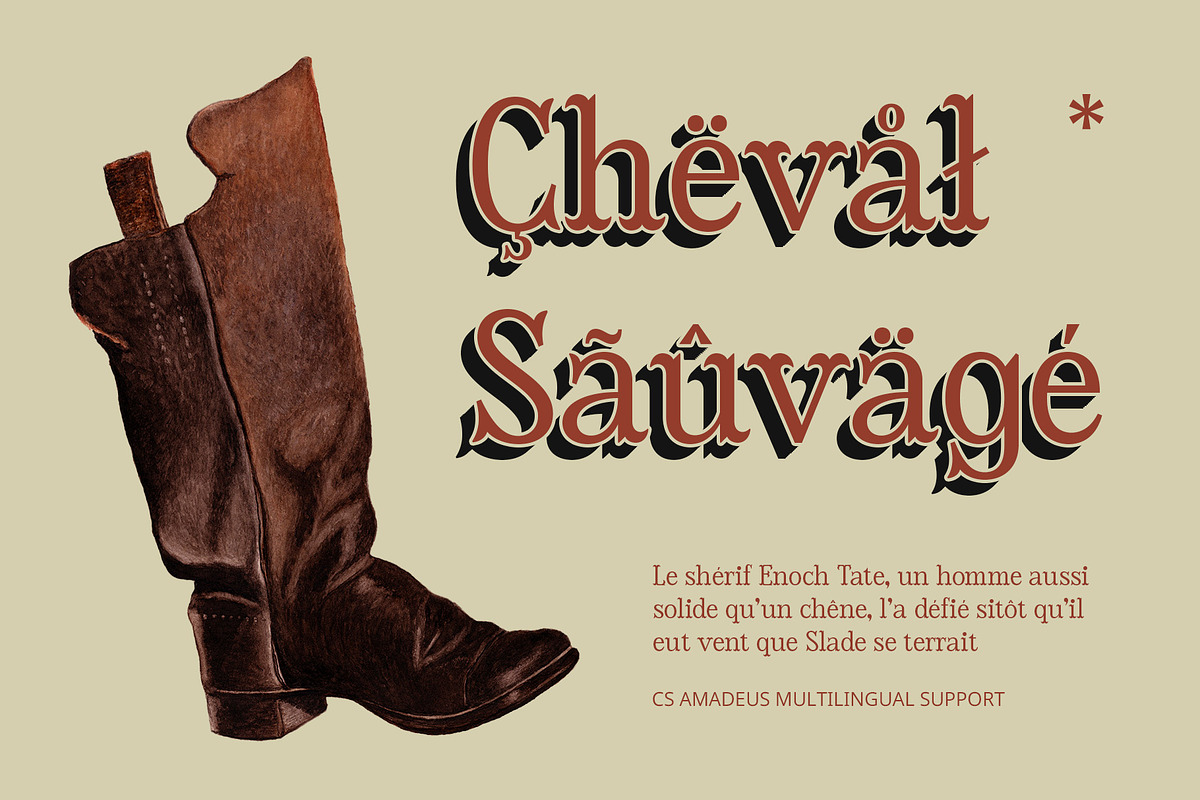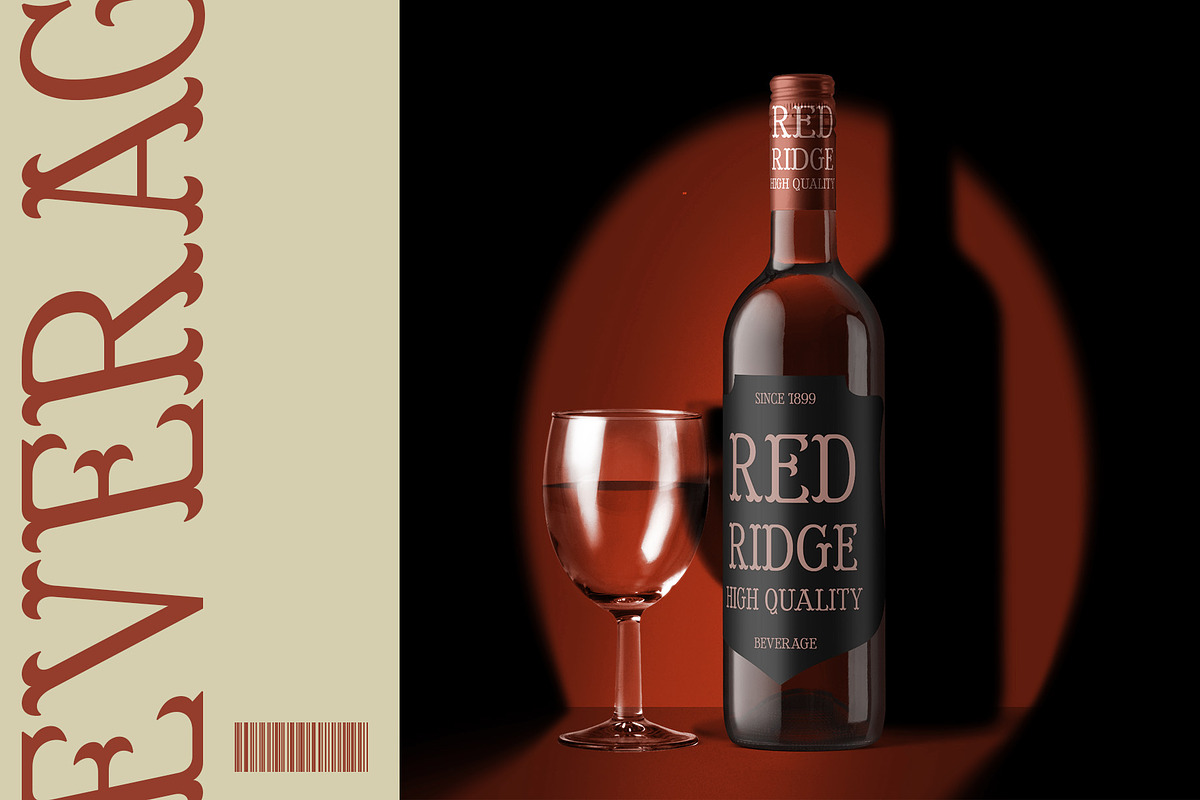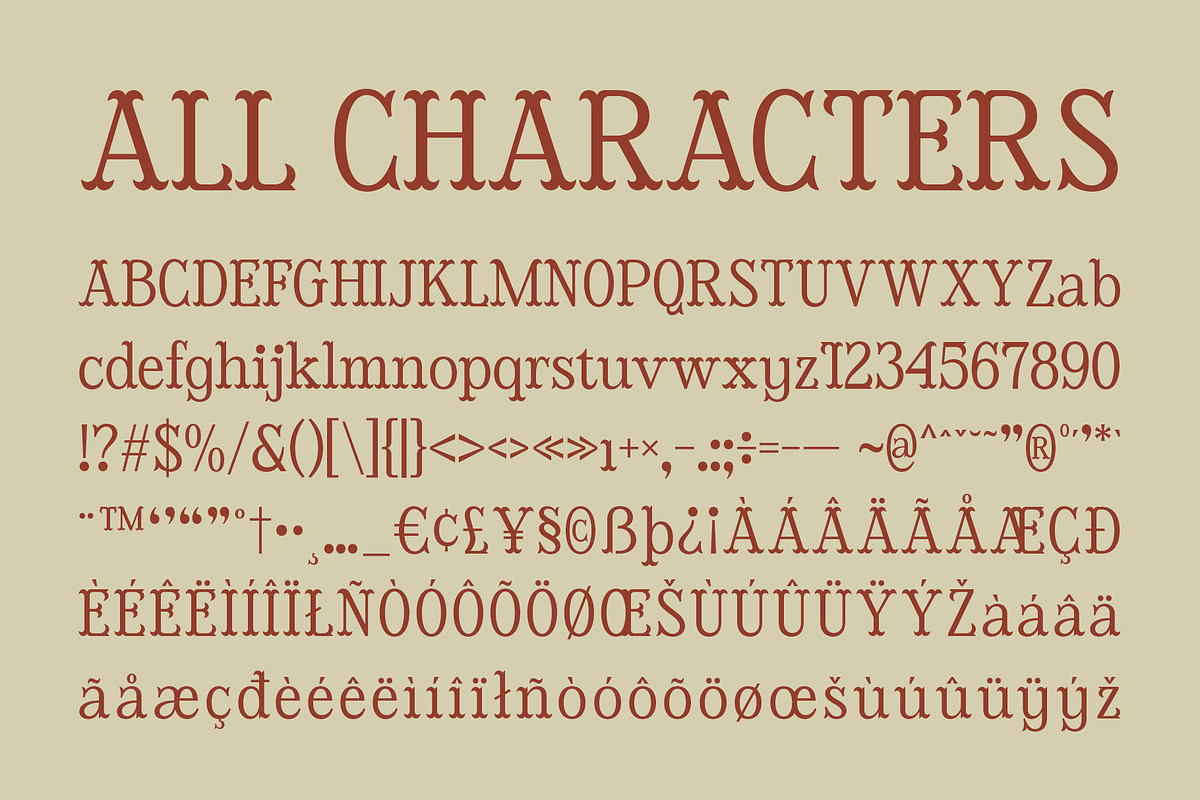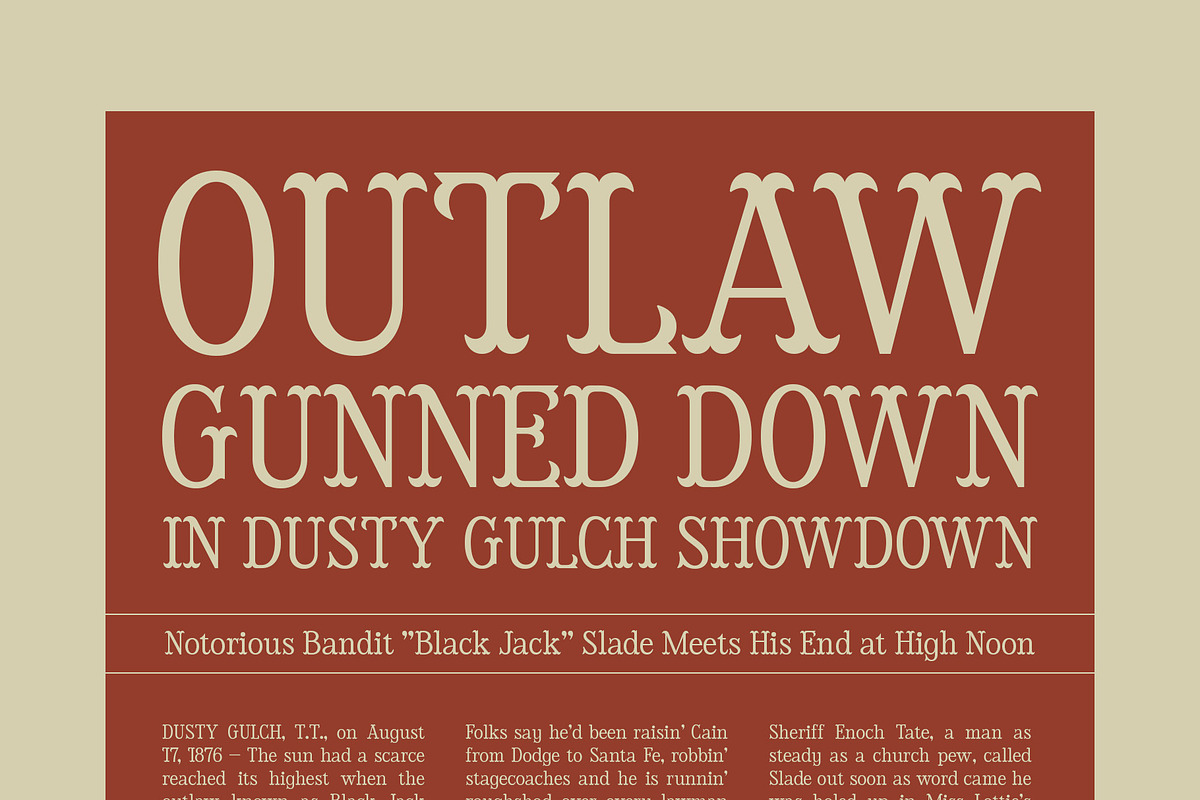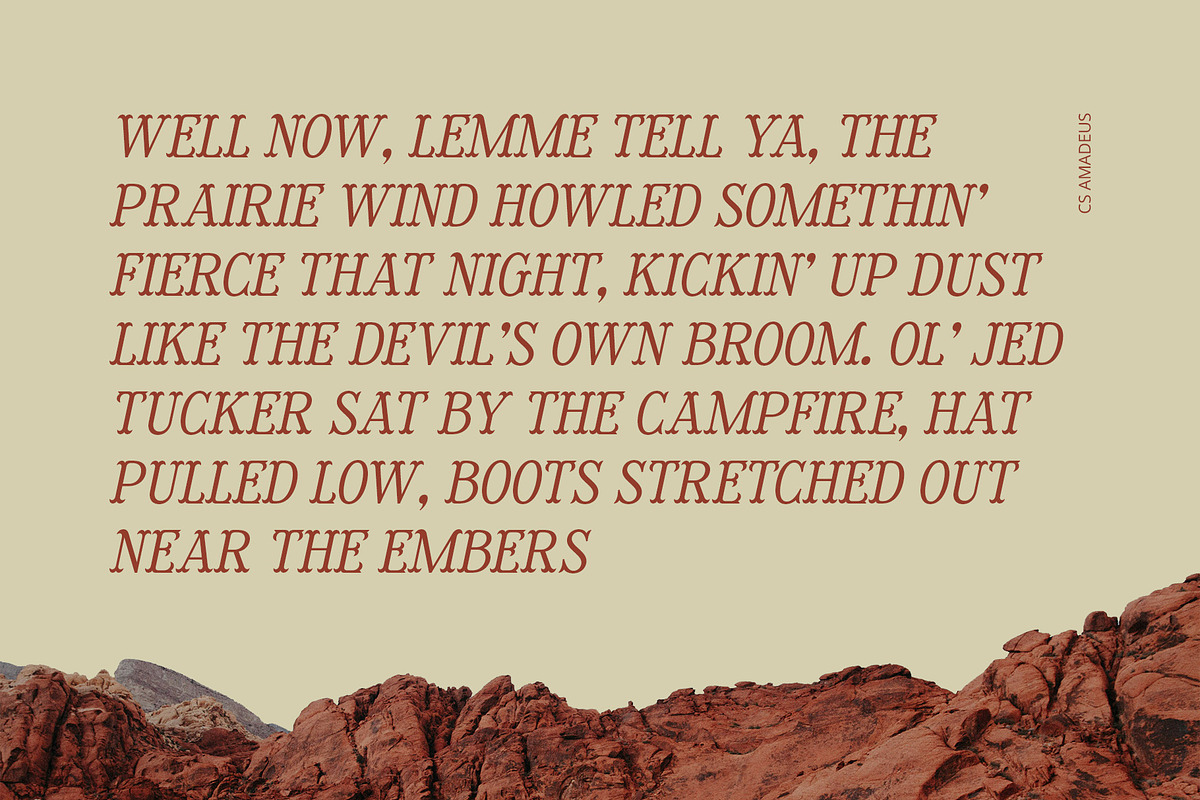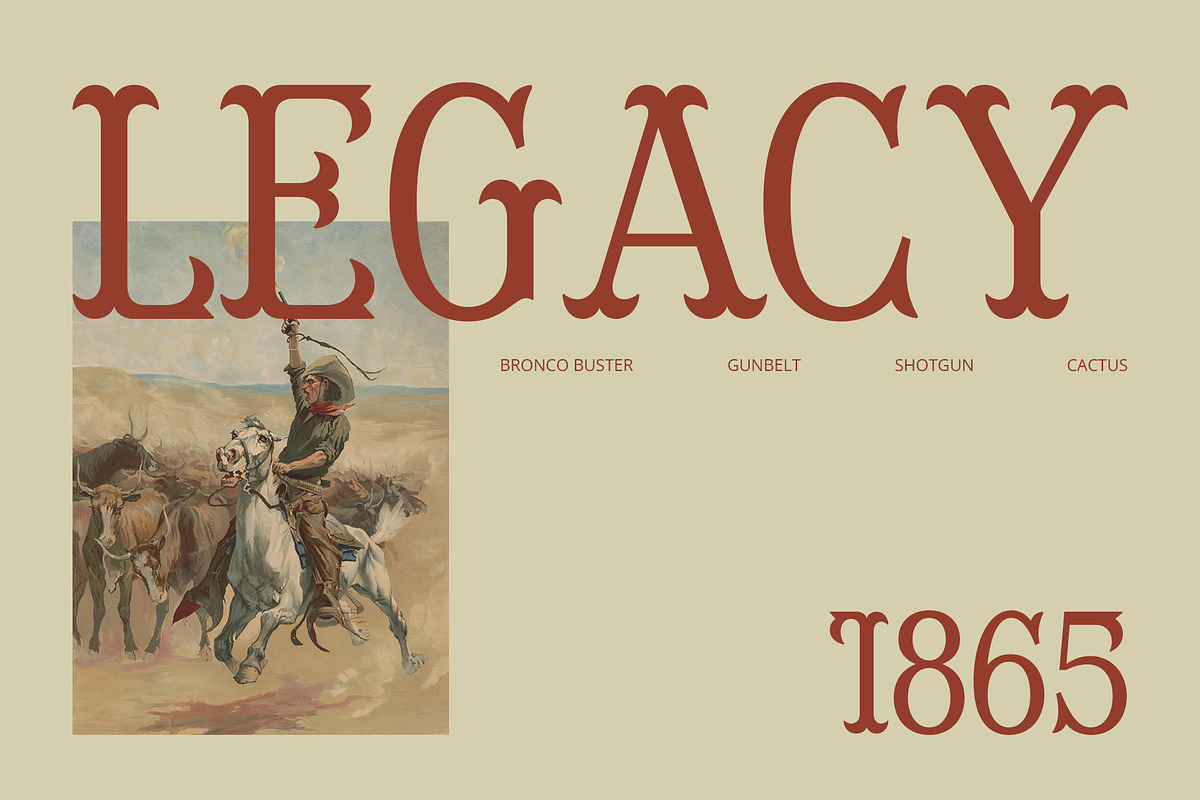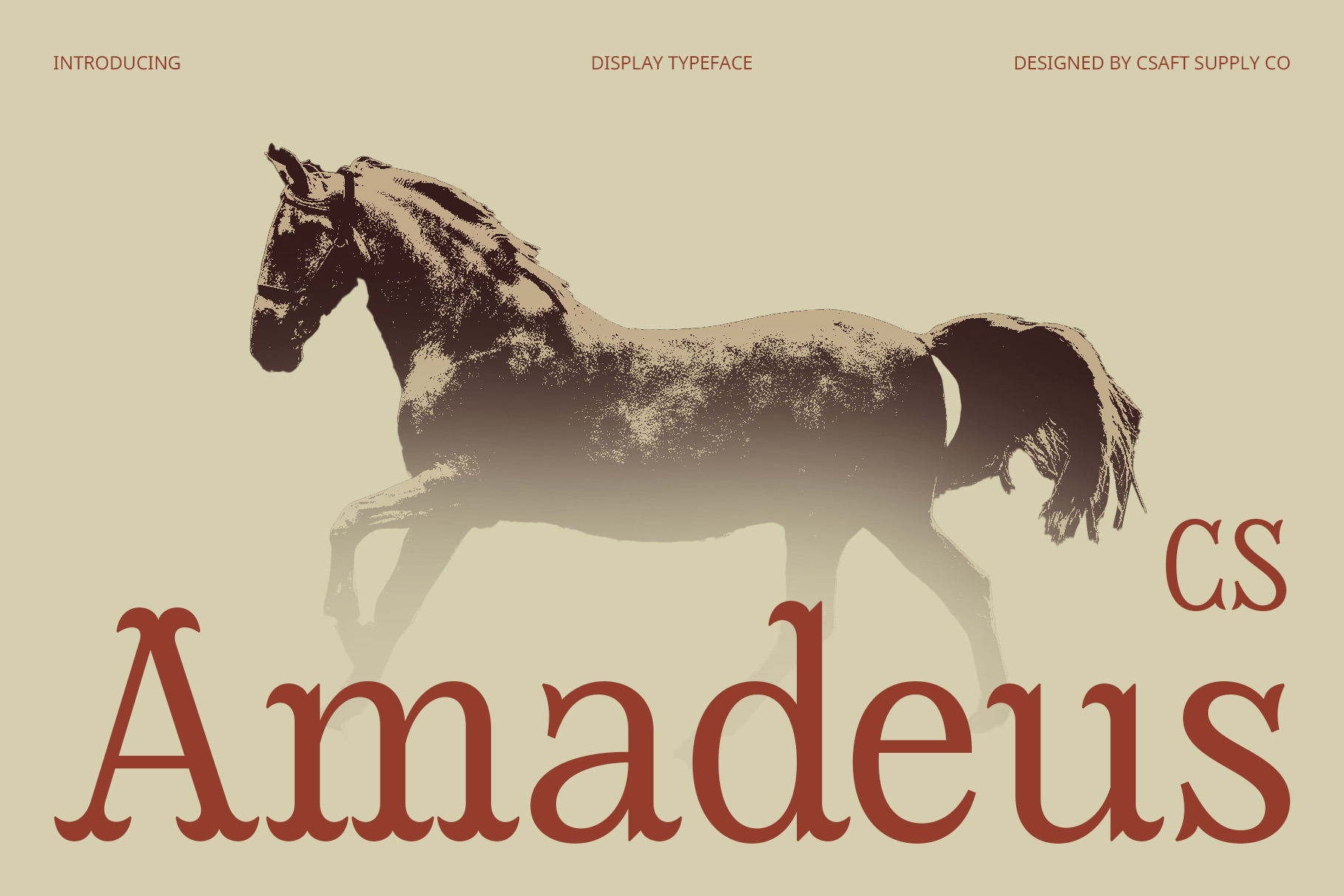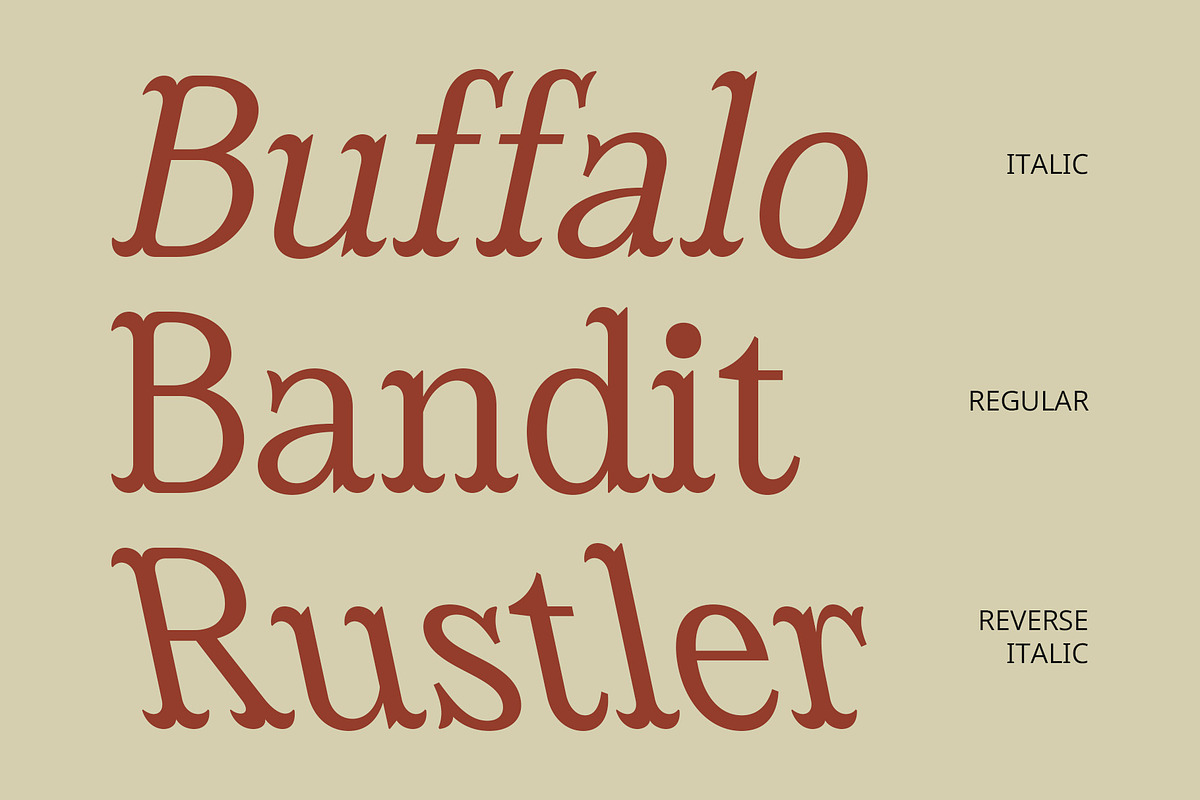
CS Amadeus – Tuscan Font
CS Amadeus Font – A Bold and Decorative Tuscan Serif
Ornate Display Serif with a Classic Tuscan Style CS Amadeus is a highly decorative display serif font inspired by the Tuscan lettering tradition, known for its split, curved, and ornamental serifs. This unique styling gives the font an instantly recognizable, elegant yet playful aesthetic, making it a perfect choice for designs that demand a bold and artistic presence.
A Blend of Vintage, Retro, and Historical Aesthetics With its rich historical influence, CS Amadeus evokes the charm of 19th-century signage, circus posters, barbershop branding, and antique typography. Its bold letterforms and intricate serifs bring a sense of nostalgia, making it ideal for projects that aim to capture classic Americana, Victorian elegance, or Wild West aesthetics.
Ideal for Eye-Catching and Decorative Designs CS Amadeus is perfect for headlines, branding, logos, packaging, and signage that need to stand out. Whether used in luxurious vintage branding, theatrical promotions, or retro-inspired merchandise, its elaborate details and bold structure ensure maximum visual impact.
A Timeless Typeface for Creative Expression With its strong personality and intricate embellishments, CS Amadeus is more than just a font—it’s a statement. Whether you’re designing for classic or contemporary themes, this Tuscan-style serif adds a touch of sophistication, artistry, and timeless appeal to any creative project.
- CS Amadeus Regular
- CS Amadeus Italic
- CS Amadeus Reverse Italic